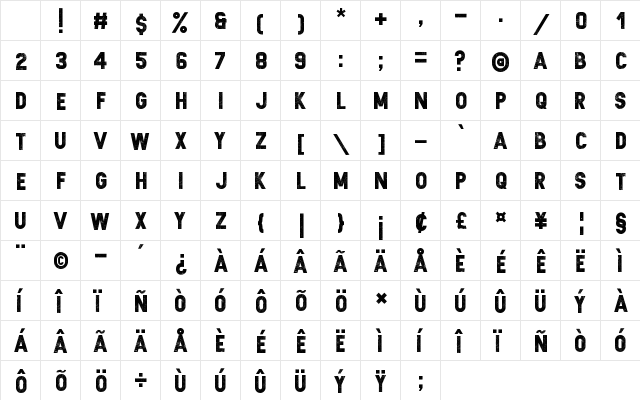
Complete Zilap Sleep Grunge glyph index. Displaying only characters natively supported by Zilap Sleep Grunge font.
Zilap Sleep embraces imperfection - its rough, textured character adds raw authenticity to designs that want to feel lived-in and unconventional.
Pro Tip: Use Zilap Sleep at larger sizes where the texture and irregularity of each letterform can be clearly seen - it loses its character at small sizes.